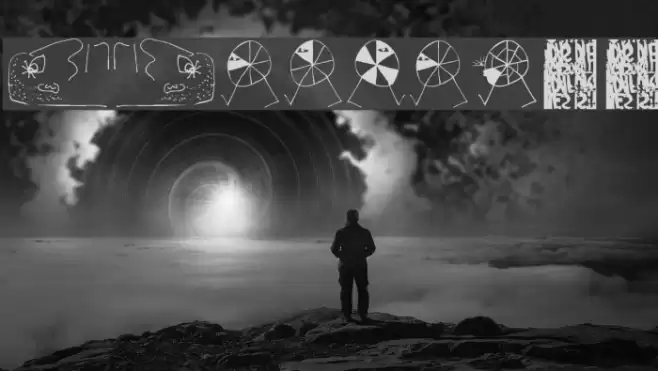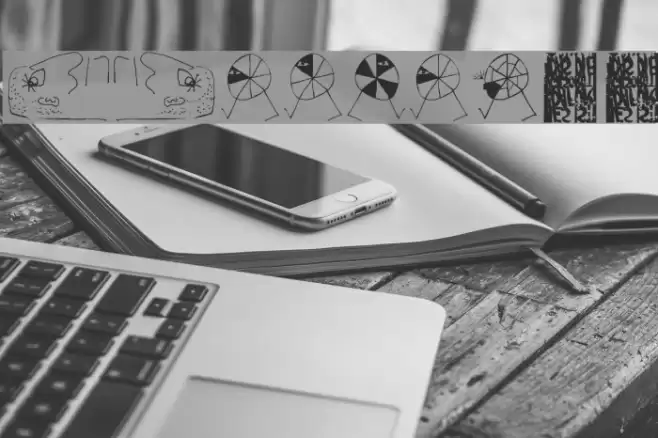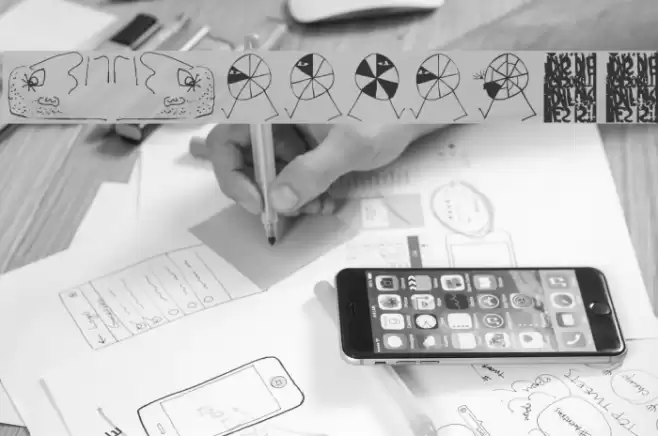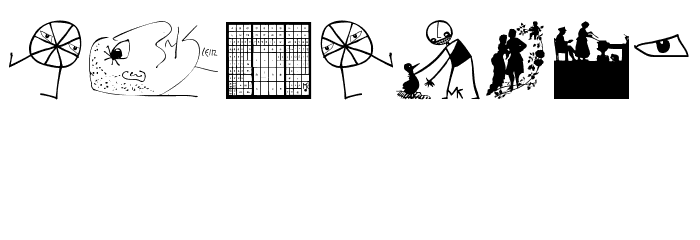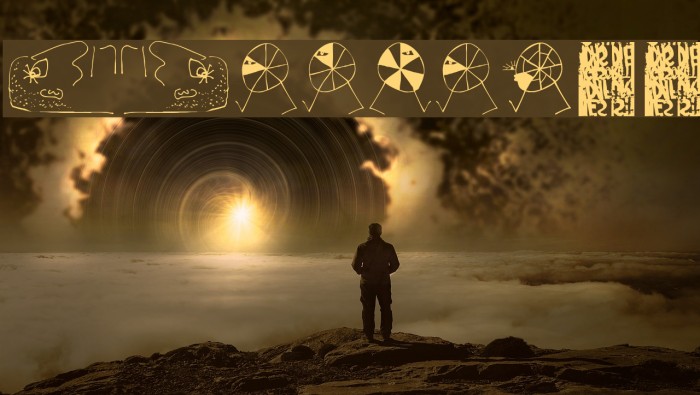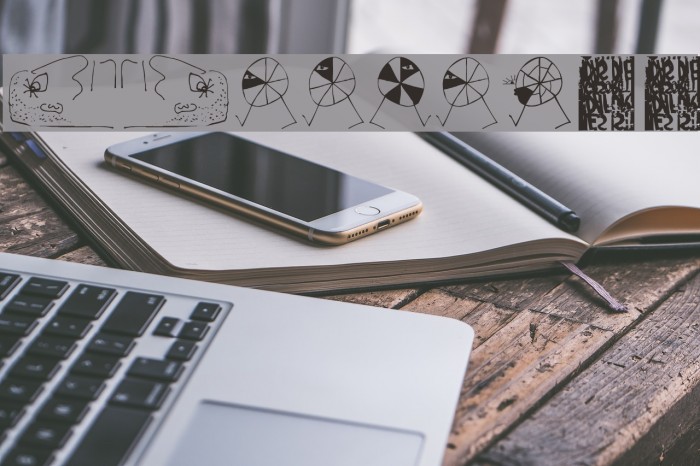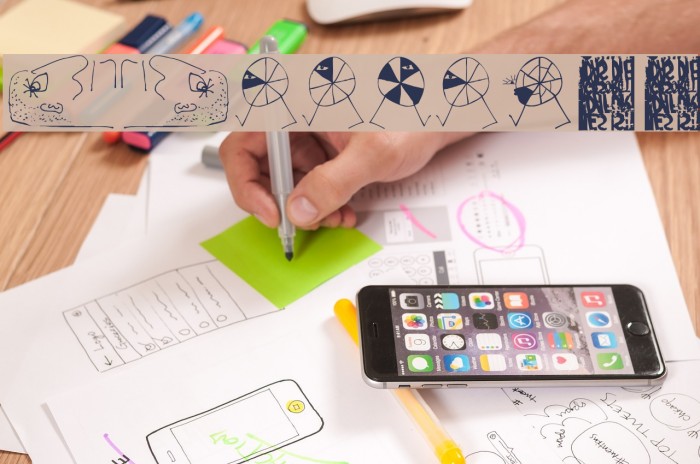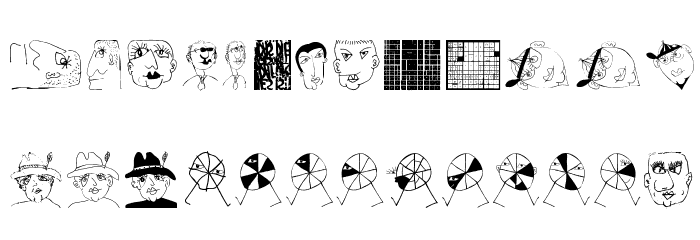
BatsStuff Font
BatsStuff Description
A highly decorative and whimsical font featuring hand-drawn, cartoon-like illustrations for each character, including faces, figures, and abstract shapes. The glyphs are irregular, playful, and visually complex, making each letterform unique and expressive.
A quirky, hand-drawn display font with illustrated, cartoonish characters from Uncategorized fonts.
- Proposed Projects: Children’s books, comic titles, party invitations, posters, creative branding, art projects.
- Overall Style: Whimsical, Playful, Artistic, Decorative
- Use Case: Logos, Posters, Headlines, Children’s materials